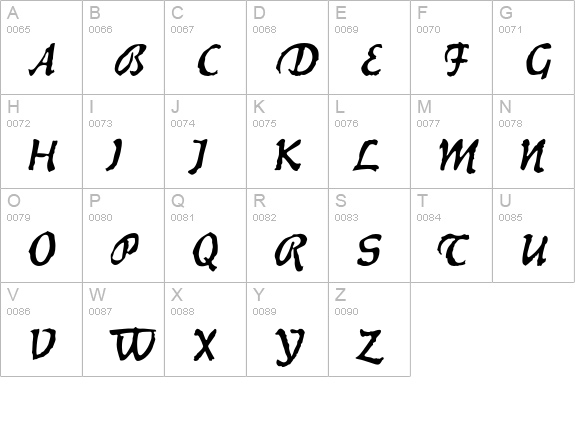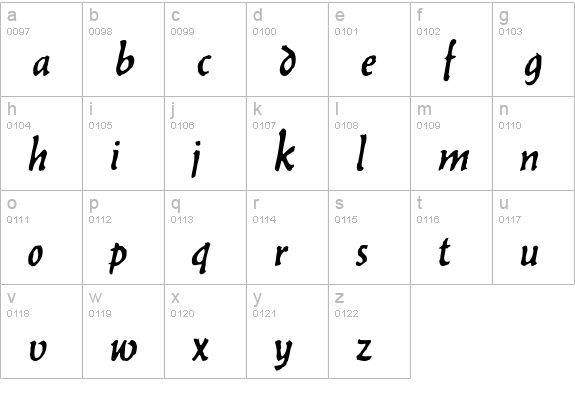
Balzac Font Details
Balzac font is a stylish and elegant typeface that brings a touch of sophistication to any design project. With its classic yet modern look, Balzac is perfect for branding, editorial design, and more. The sleek lines and graceful curves of this font make it a versatile choice for a wide range of applications. What's even better is that Balzac font is available for free download at FontsMarket.com. This means you can easily incorporate this beautiful typeface into your projects without any cost. Whether you're working on a professional project or a personal one, Balzac font is sure to add a touch of class and elegance. Download it today and elevate your designs with this stunning font.